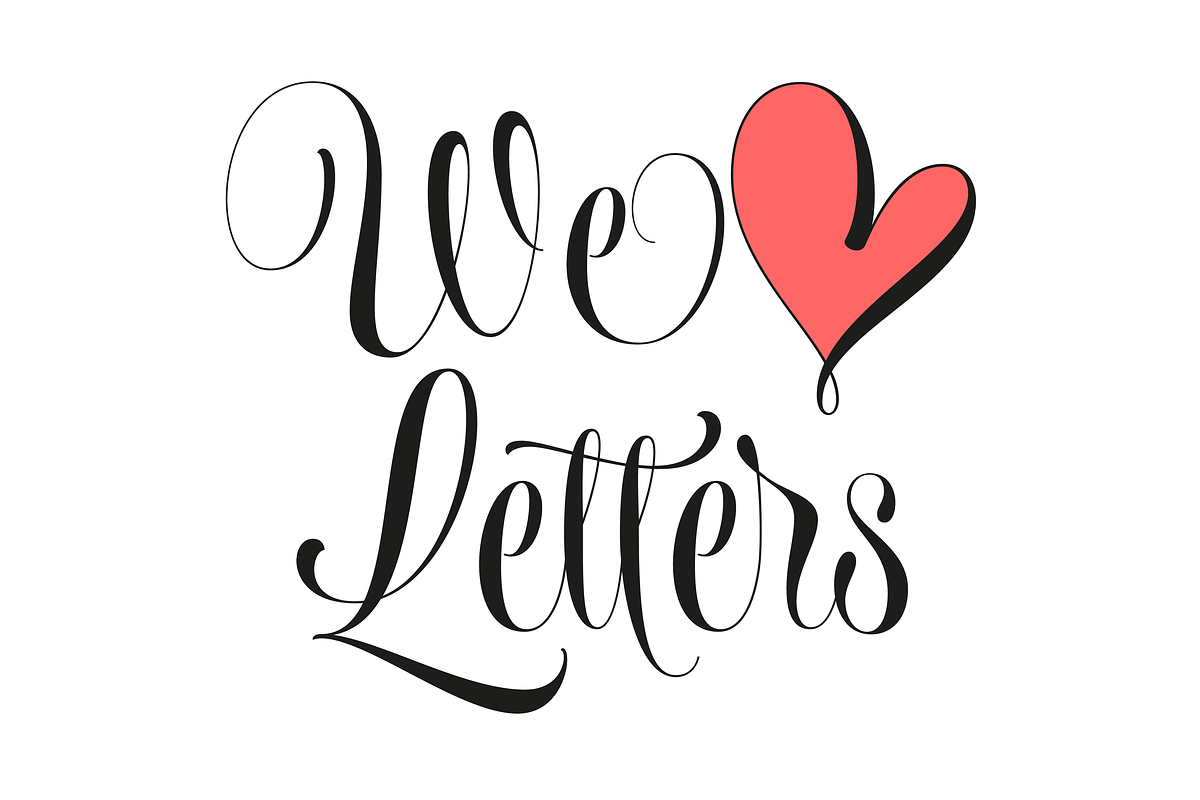
The Wishes Script Pro Text Bold Font Free Download is a stylish, elegant script typeface with bold, flowing curves. Perfect for wedding invitations, branding, greeting cards, and special event designs, this font brings a luxurious, handwritten feel to your projects.
With its confident bold strokes and sophisticated curves, Wishes Script Pro Text Bold stands out while maintaining readability. It includes uppercase and lowercase letters, stylistic alternates, ligatures, punctuation, and multilingual support, making it versatile for various creative applications.
Add a touch of refined elegance to your designs with the Wishes Script Pro Text Bold Font Free Download. Try it today and let your typography stand out with bold, graceful charm.